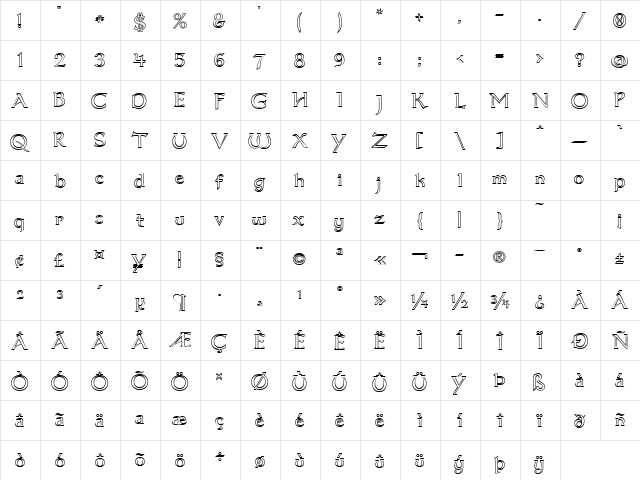
Dumbledor 1 Outline Regular Font Preview
Dumbledor 1 Outline Regular
Dumbledor 1 Outline Regular Font Details
Design Context for Dumbledor 1 Outline Typeface
Dumbledor 1 Outline brings ornamental detail and strong personality to headlines and identities, where visual impact matters more than quiet functionality.
Font Pairing: Pair with a clean neutral sans-serif for body copy to let Dumbledor 1 Outline's character lead without overwhelming the composition.
Pro Tip: Use Dumbledor 1 Outline exclusively at display sizes — it was designed to be seen, not read at length. Let a neutral companion handle body copy.